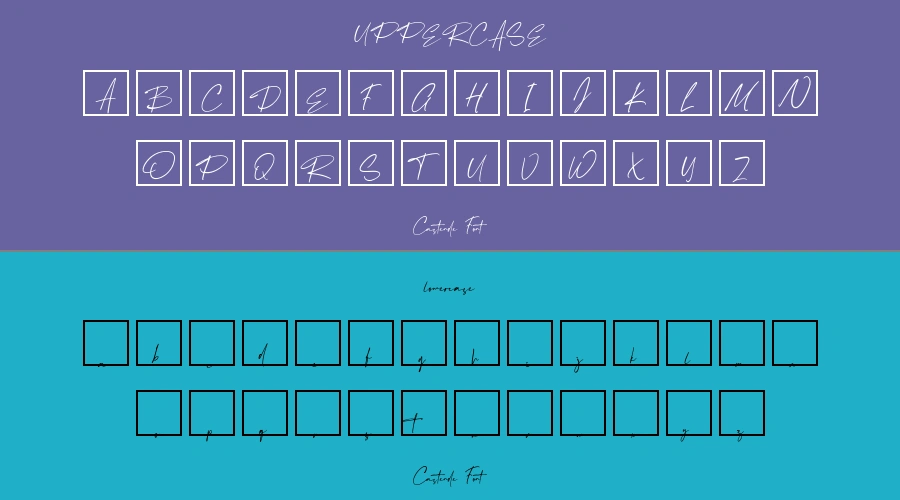
About Castende Font
Designed with precision, Castende Font merges sharp edges with clarity in every character. This versatility makes it particularly effective for government publications, where flexibility and creative impact directly impact communication quality. Each letterform demonstrates meticulous craftsmanship.
Technical excellence shines through elements like creative flair and terminal forms, enhancing typographic versatility. In certification marks settings, Castende Font proves its worth through superior large format impact. The thoughtful execution of corner treatment and design heritage ensures professional results.